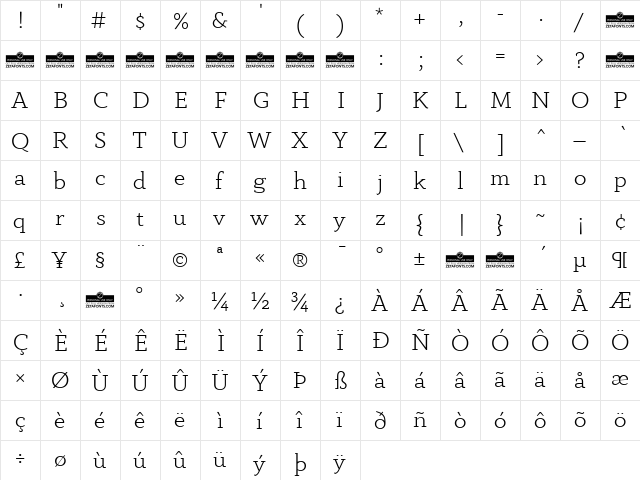
Anaphora Trial Light
| Foundry | Studio Kmzero |
| Designer | Francesco Canovaro |
Design Context for Anaphora Trial Typeface
Anaphora Trial is a composed and adaptable typeface that performs quietly and consistently across a wide range of design contexts. The delicate stroke weight brings airiness and refinement to layouts.